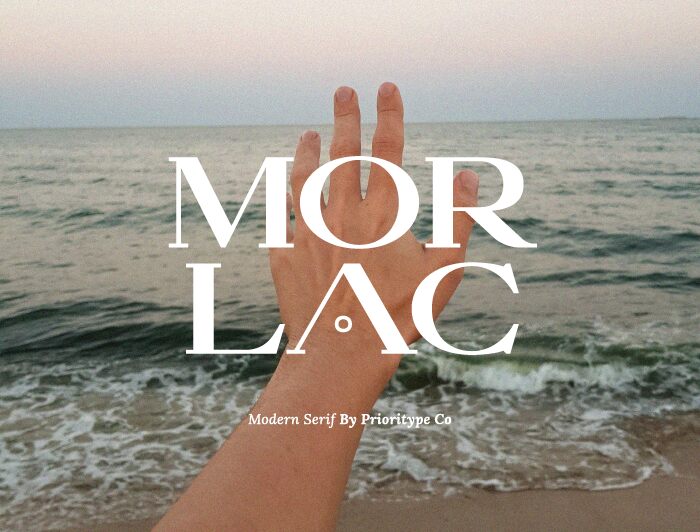
Morlac, a creation of Prioritype Co, is a serif font that exudes a unique blend of classic sophistication and modern boldness. With its semi-bold weight and expanded width, Morlac commands attention and conveys confidence. The well-defined serifs anchor each letter with an air of authority, while the generous spacing ensures readability across various mediums.
The font's aesthetic appeal lies in its harmonious balance between traditional elegance and contemporary flair, making it versatile for an array of creative projects. Whether gracing the pages of a luxury magazine or emblazoned on branding materials, Morlac's distinctive style adds character and distinction.
Its expanded width offers a striking presence in headlines and titles, yet Morlac retains clarity in smaller text sizes due to its semi-bold weight. This makes it not only suitable for impactful statements but also consistent body text that requires both presence and legibility.
In summary, Morlac stands as an artistically versatile typeface with potential applications spanning from editorial design to upscale advertising campaigns. It invites designers to leverage its unique charm for projects that demand both visual impact and refined taste.